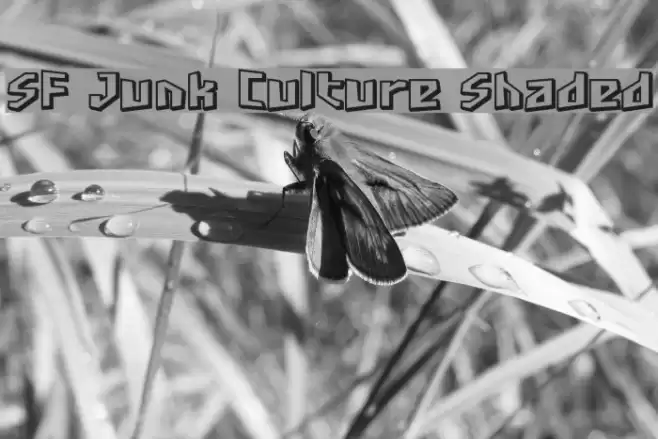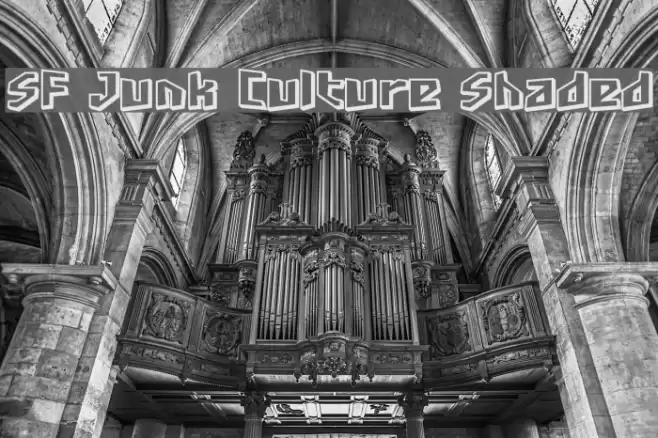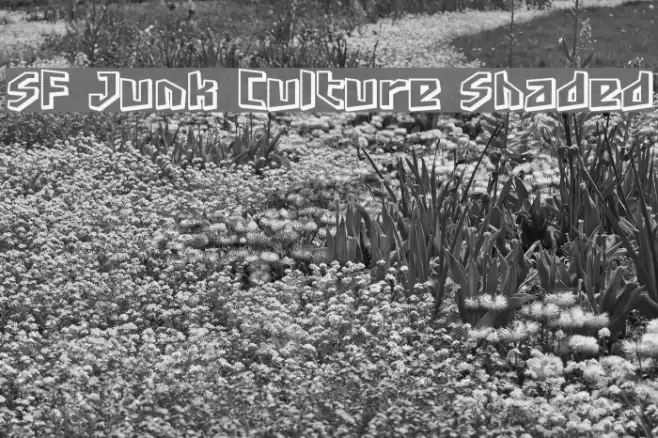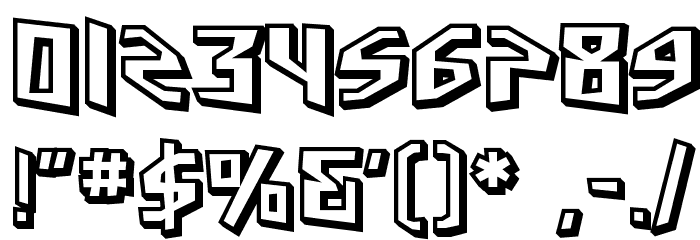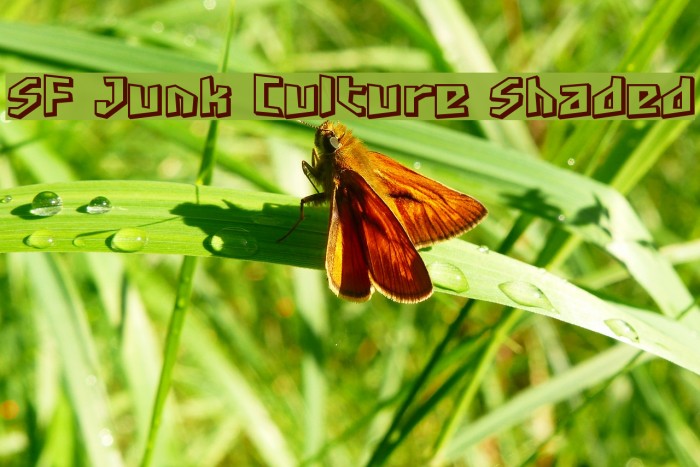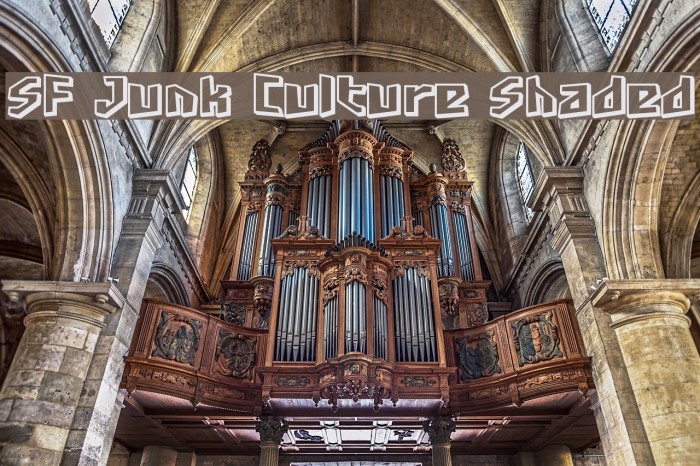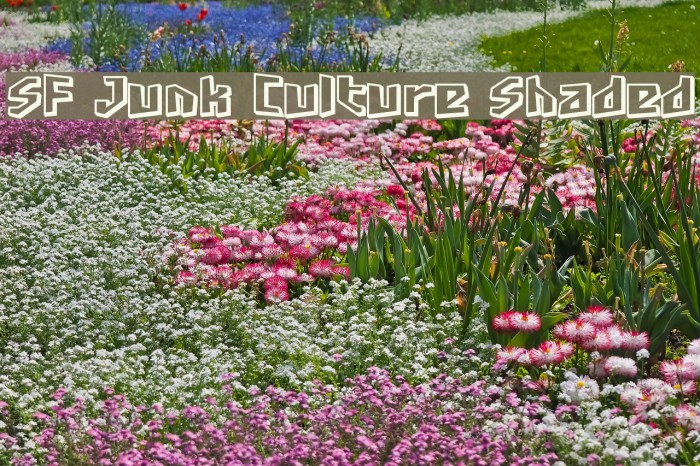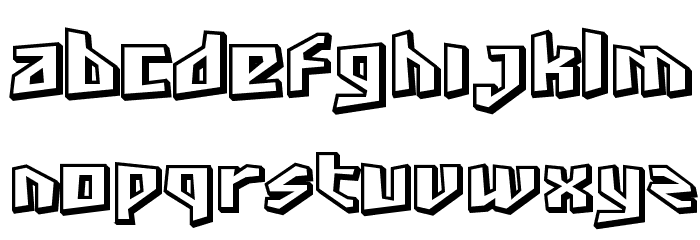
SF Junk Culture Shaded Font
SF Junk Culture Shaded Description
This font features a bold, geometric style with a three-dimensional shaded effect that gives each character a distinct, blocky appearance. The letters are outlined with a thick black border, enhancing their visibility and making them stand out against any background. The angular design and sharp edges contribute to a modern and edgy aesthetic, while the shading adds depth and a sense of movement. This font is highly decorative and is best suited for projects that require a strong visual impact.
A bold, geometric font with a 3D shaded effect and thick outlines from 3D fonts.
- Proposed Projects: Ideal for posters, album covers, video game titles, and any project needing a bold, eye-catching typeface.